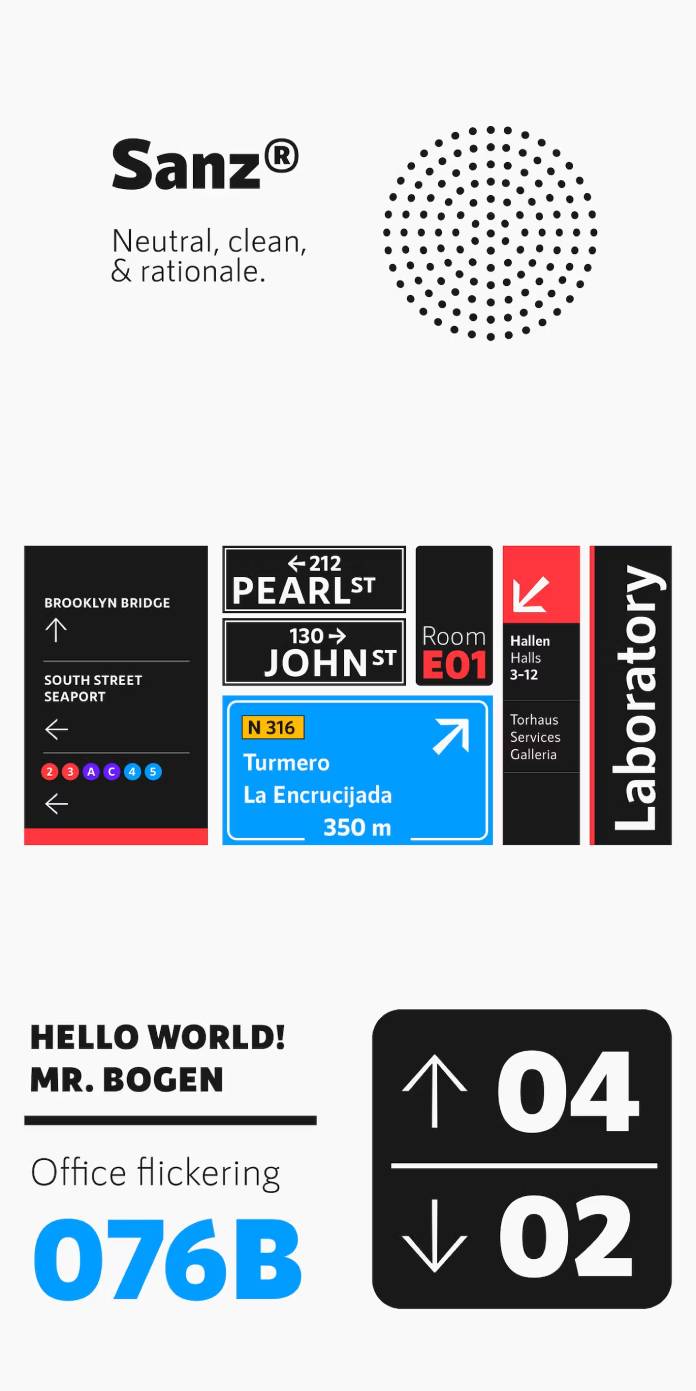
Unveiling RNS Sanz: The Architect of Typography
In the vast landscape of typography, where form meets function, one typeface stands as an epitome of clarity, rationality, and unwavering functionality – the RNS Sanz font family. Crafted by the ingenious mind of Yorlmar Campos, this font family embodies a neutrality that serves as an unassuming workhorse for any design purpose, and its versatility transcends the boundaries of conventional typefaces.
A Symphony of Rationality
Imagine a typeface that speaks volumes through its simplicity, yet holds the power to convey messages with absolute clarity. RNS Sanz is precisely that symphony of rationality. With seven meticulously crafted weights ranging from the delicate Light to the commanding Black, each weight is a testament to precision and purpose.
Crafting Functionality
Functionality is at the heart of RNS Sanz’s design. Its clean lines and clear strokes make it a true chameleon in the world of typography. Whether it graces the signage of a bustling metropolis or adorns the pages of a sleek website, this font family seamlessly adapts to any environment without losing its distinct character.
Versatility Redefined
Architectural Elegance in Typography
Much like the architectural marvels it finds its affinity with, RNS Sanz exudes a sense of structural elegance. Ideal for signage systems and rational architecture, its design philosophy aligns perfectly with clean, functional spaces, where every element serves a purpose.
Small Caps, Big Impact
The inclusion of small caps across all seven weights adds a touch of sophistication and versatility to this font family. Whether it’s the subtlety of Light or the boldness of Black, the small caps feature accentuates the essence of each weight, providing designers with a broad spectrum of creative possibilities.
Embracing the Future of Typography
As the world of design evolves, RNS Sanz remains a timeless companion, embracing the future with its adaptability and reliability. Its compatibility with multiple formats ensures that it not only stands the test of time but also remains at the forefront of modern typography.
In conclusion, the RNS Sanz font family is not just a collection of letters; it’s an architectural marvel in itself. Its rationality, clarity, and adaptability make it an indispensable tool for designers seeking a balance between form and function in their creations. Yorlmar Campos’s creation transcends the realms of mere typeface; it’s a testament to the artistry and ingenuity that define exceptional design.